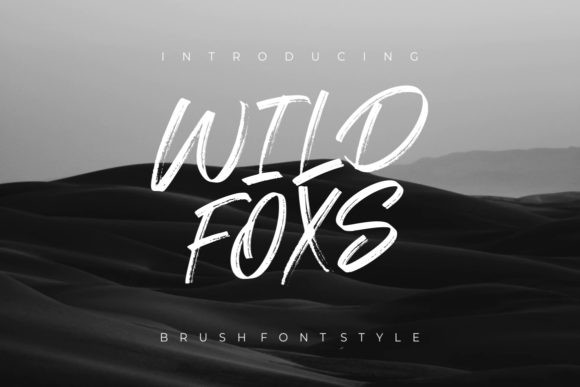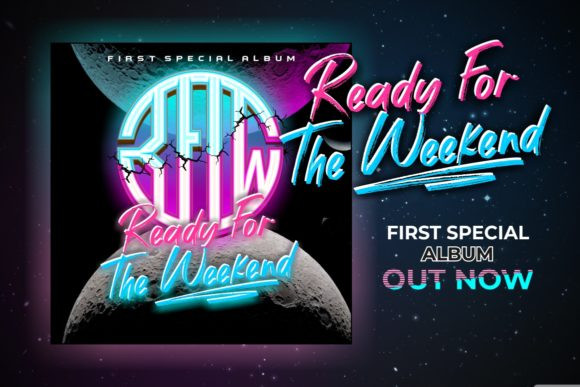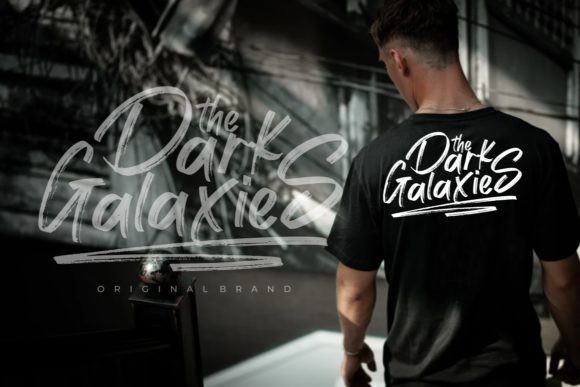
Wild Foxs Font
Wild Foxs is a simple and neat brushed display font. Its natural and unique style makes it incredibly fitting to a large pool of designs. The only limit is your imagination!